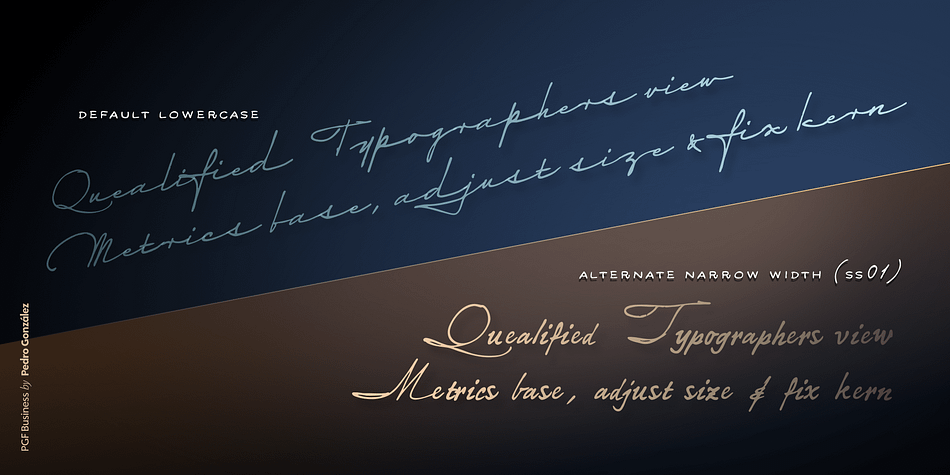
PGF Business
Designed by PeGGO Fonts and Pedro Gonzalez Jorquera, PGF Business is a multiple classification font family. This typeface has eight styles and was published by PeGGO Fonts.
PGF Business is handwritten style inspired by the old calligraphy used to be in maps, some Spencerian strokes, also known as “Business Script” and mostly gestures naturally belong to confident signature strokes.
Organized in 5 individual styles, for making it easier to use, and gathered all at one in a bigger unique file called “PGF Bussiness Full” where you will find way much more options, but requires a more advance editing skill to use. Accompained with a useful set of Dingbats and a set of complementary Ornaments to enhance more versatile typographic compositions.